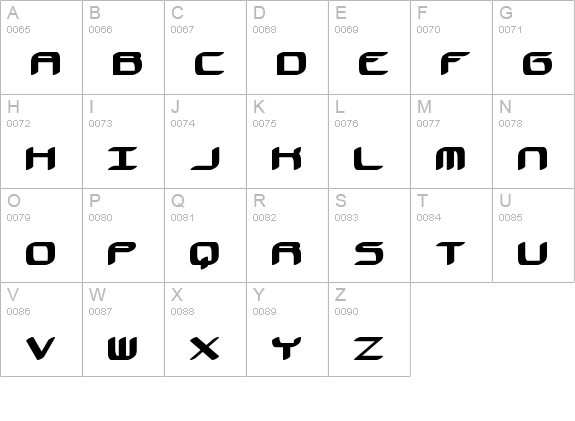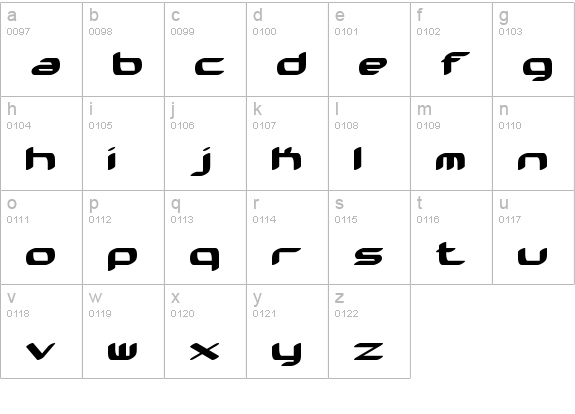
Kinkaid BRK Font Details
Kinkaid BRK font is a stylish and versatile typeface that exudes a sense of modern elegance and sophistication. With its unique blend of sharp angles and smooth curves, this font is perfect for a wide range of design projects. Whether you're looking to create eye-catching headlines, sleek logos, or elegant invitations, Kinkaid BRK is sure to make a statement. The best part? Kinkaid BRK is available for free download at FontsMarket.com. This means that you can easily access this beautiful font and use it in your projects without any cost. Don't miss out on the opportunity to enhance your designs with the timeless charm of Kinkaid BRK font. Download it today and let your creativity shine!